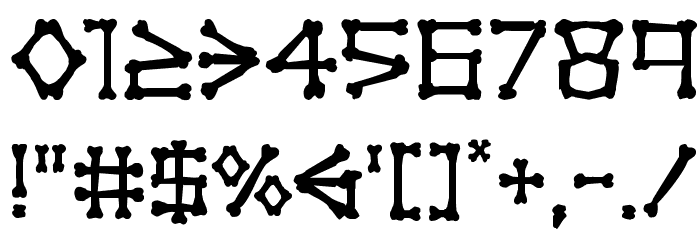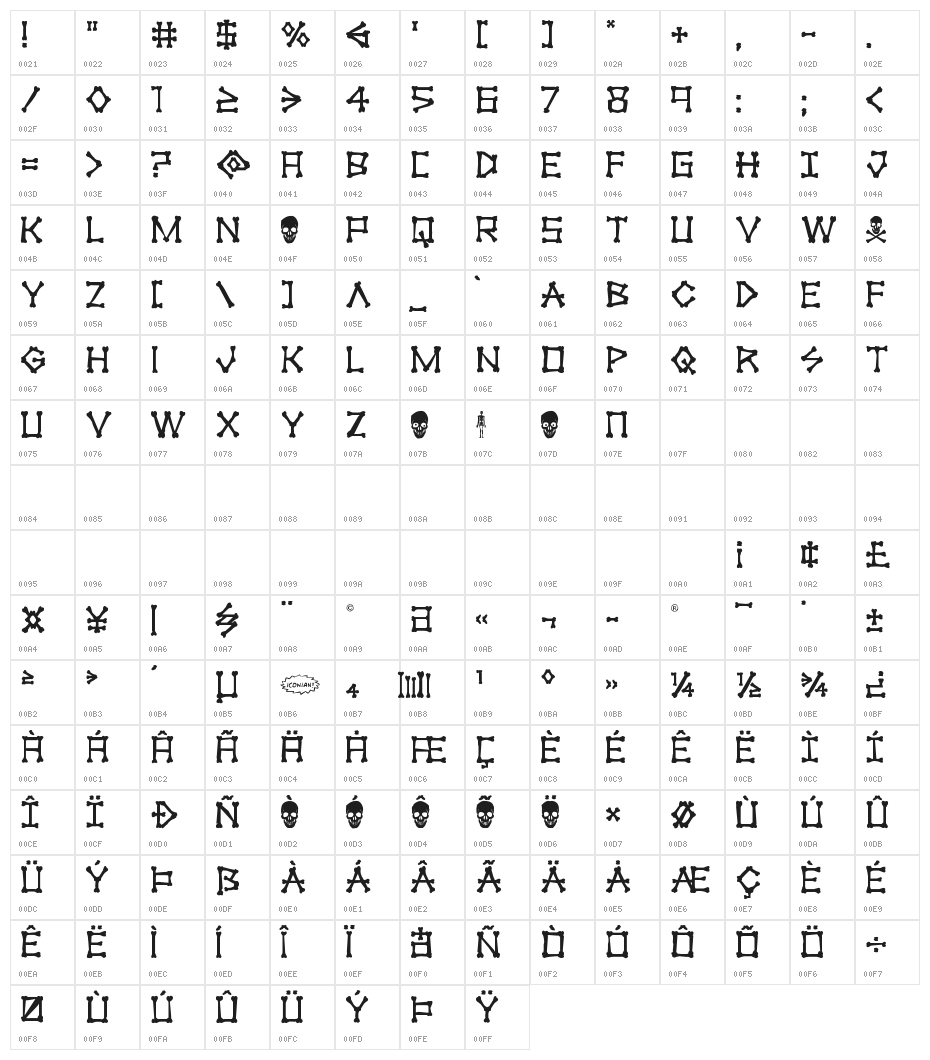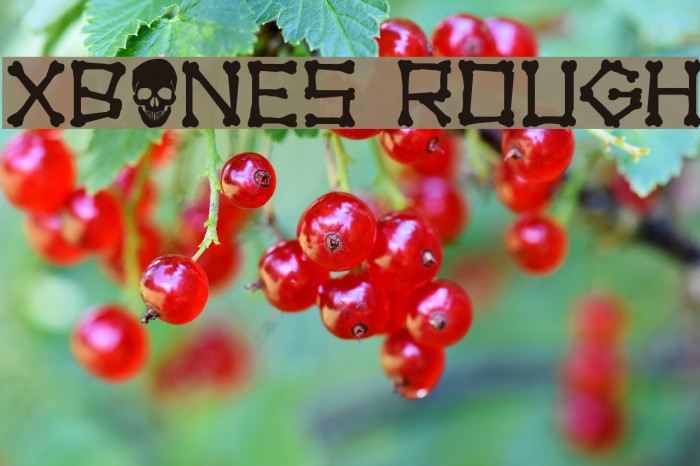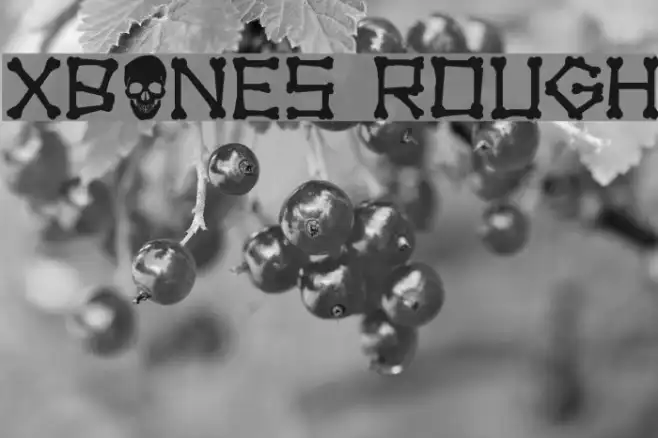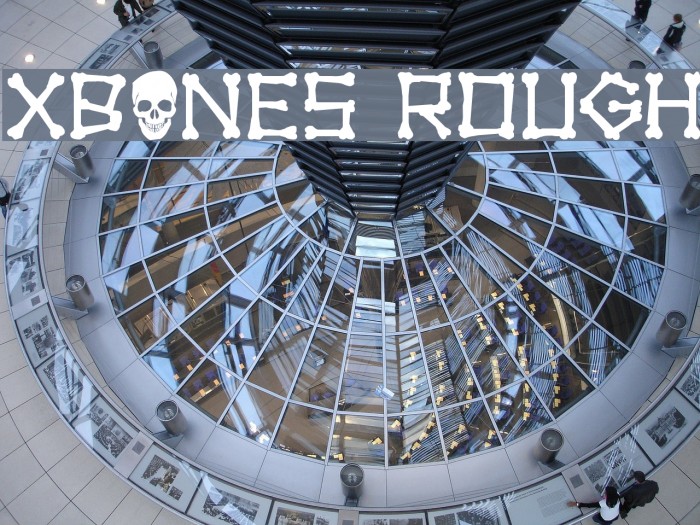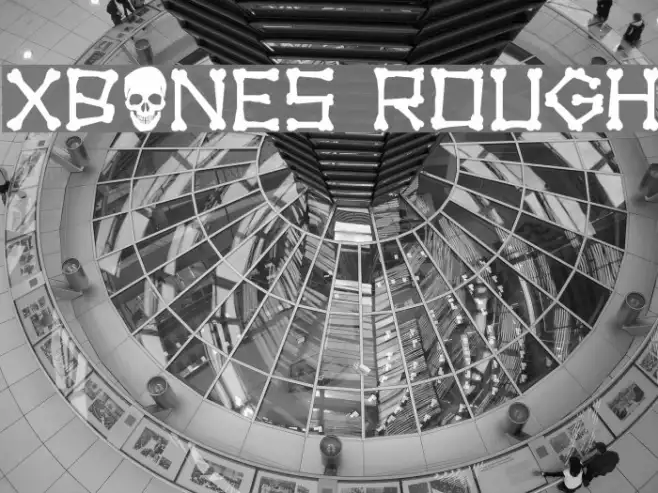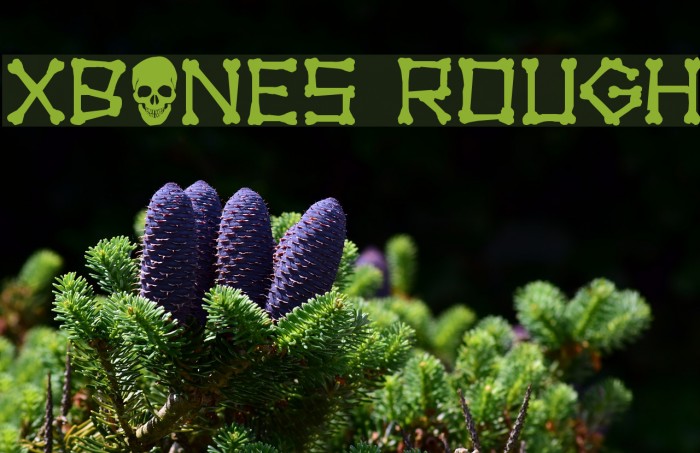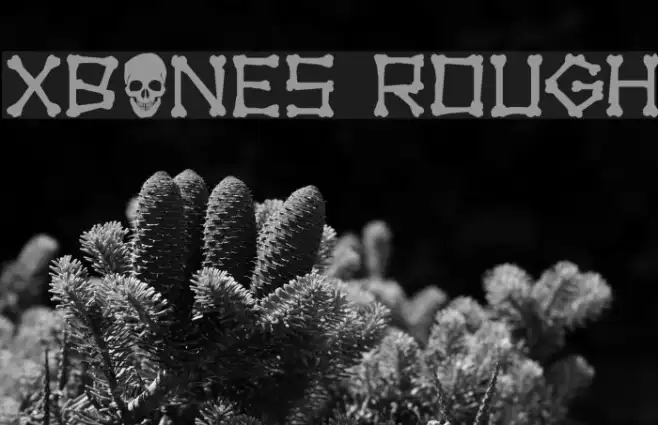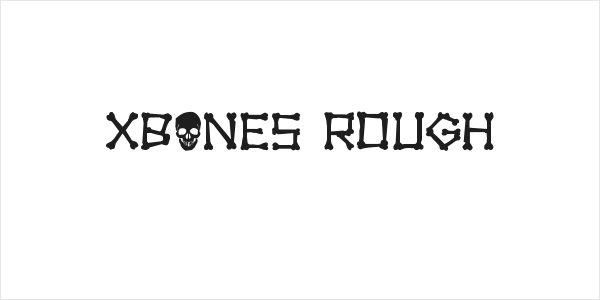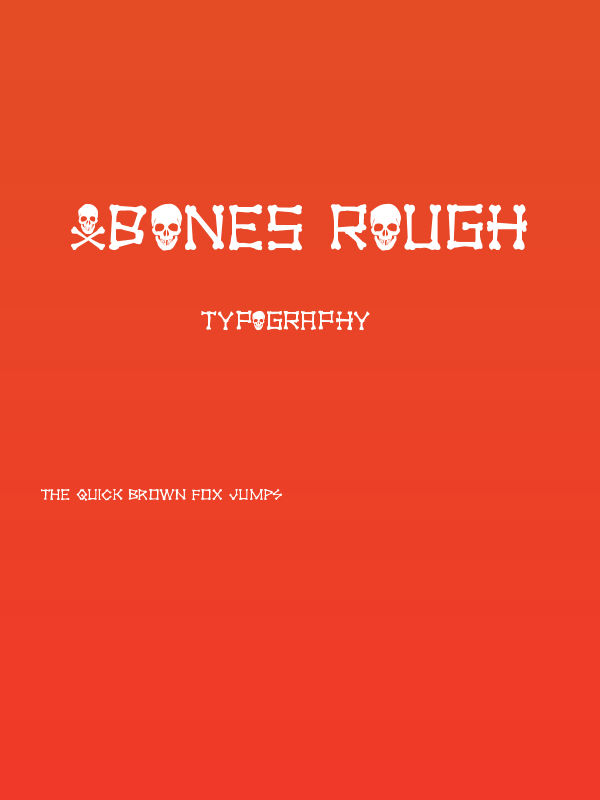
xBONES Rough Font
xBONES Rough Description
This font features a unique and playful design that mimics the appearance of bones. Each character is crafted to resemble skeletal structures, giving it a distinct and edgy look. The uppercase and lowercase letters maintain a consistent style, with jagged edges and uneven lines that add to the rough, hand-drawn aesthetic. Numbers and special characters are also designed in the same bone-like fashion, ensuring a cohesive appearance across all elements. The font's quirky and bold style makes it ideal for projects that require a touch of the macabre or a Halloween theme.
| Use Case | Headlines, Logos, Themed Events |
| Proposed Projects | Ideal for Halloween-themed designs, spooky invitations, children's books, or any project needing a quirky, skeletal touch. |